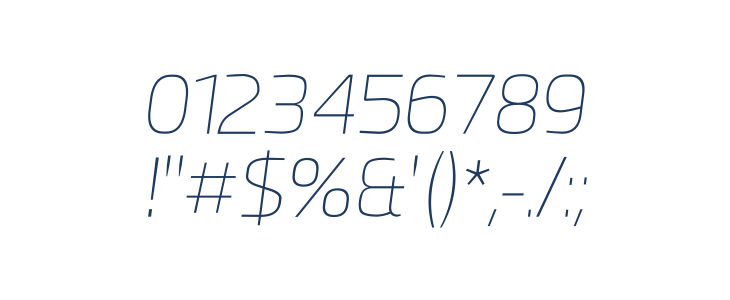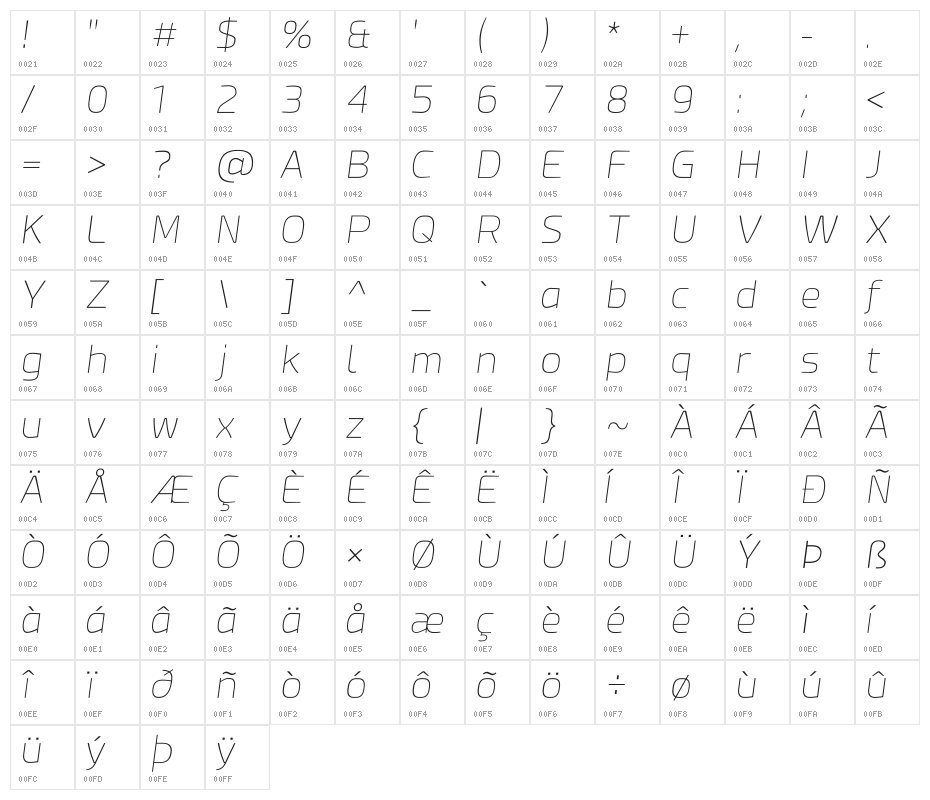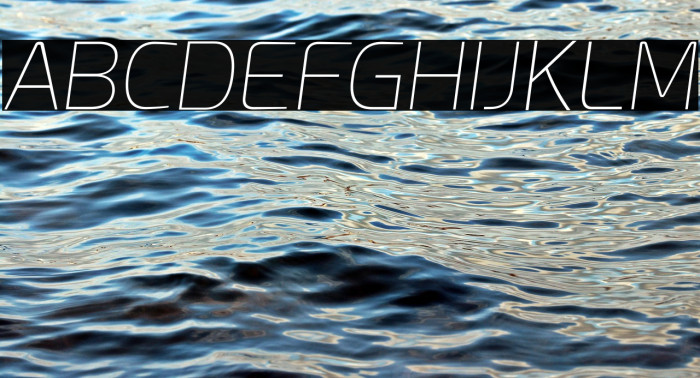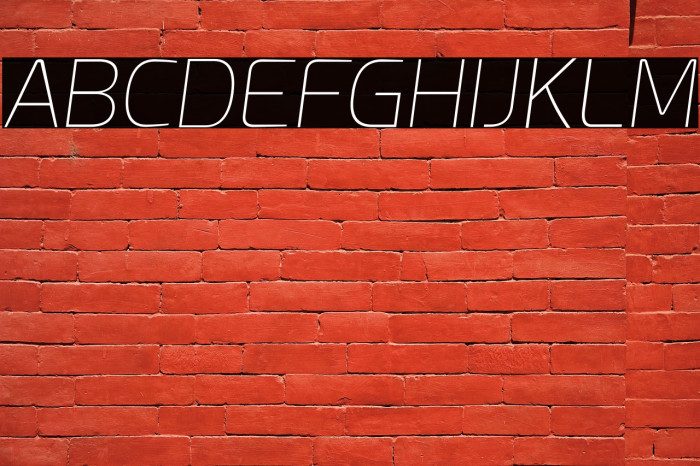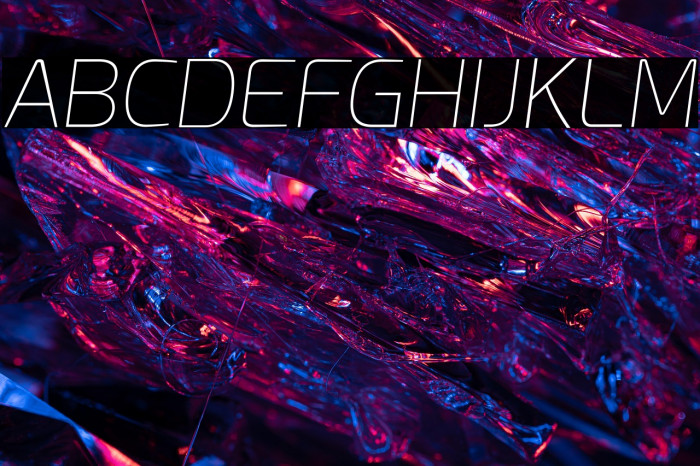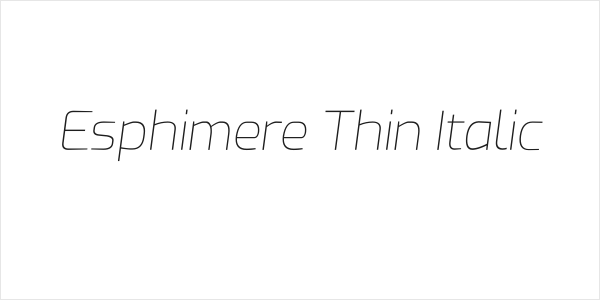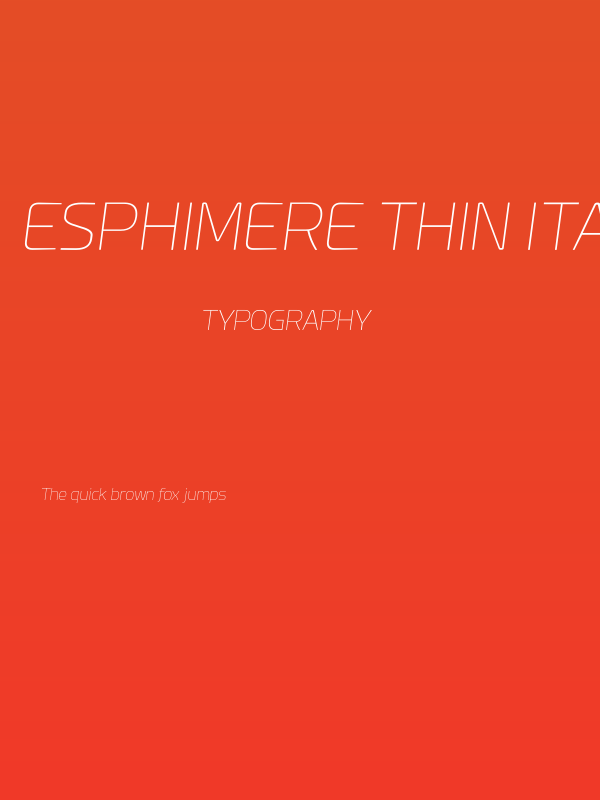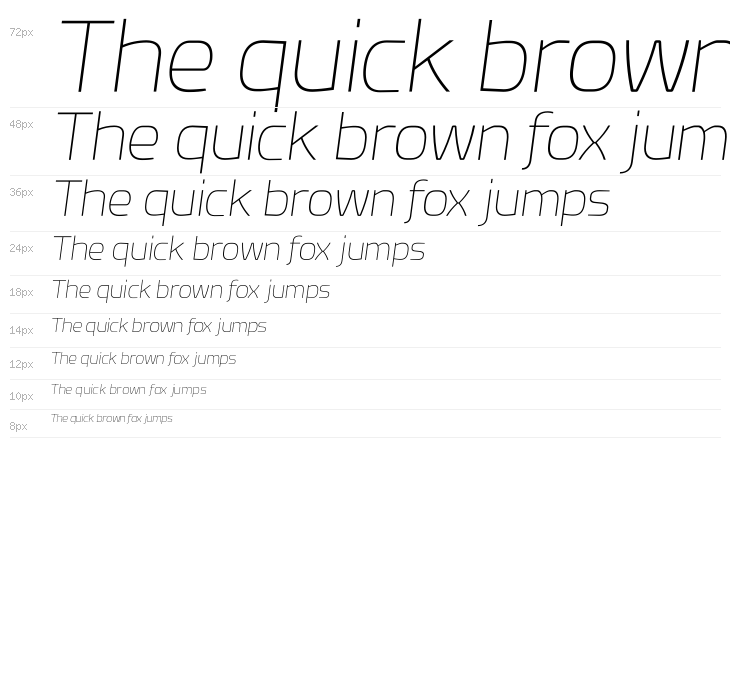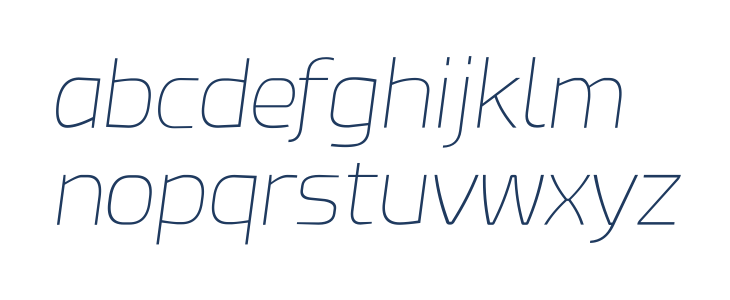
Esphimere Thin Italic Font
Esphimere Thin Italic Description
This font features a sleek and modern design with a thin, elegant stroke. The characters are slightly italicized, giving a sense of motion and fluidity. The uppercase and lowercase letters maintain a consistent style, with smooth curves and sharp angles that create a harmonious balance. The numerals and special characters are designed to complement the alphabet, ensuring readability and aesthetic appeal. The overall appearance is clean and sophisticated, making it suitable for contemporary design projects.